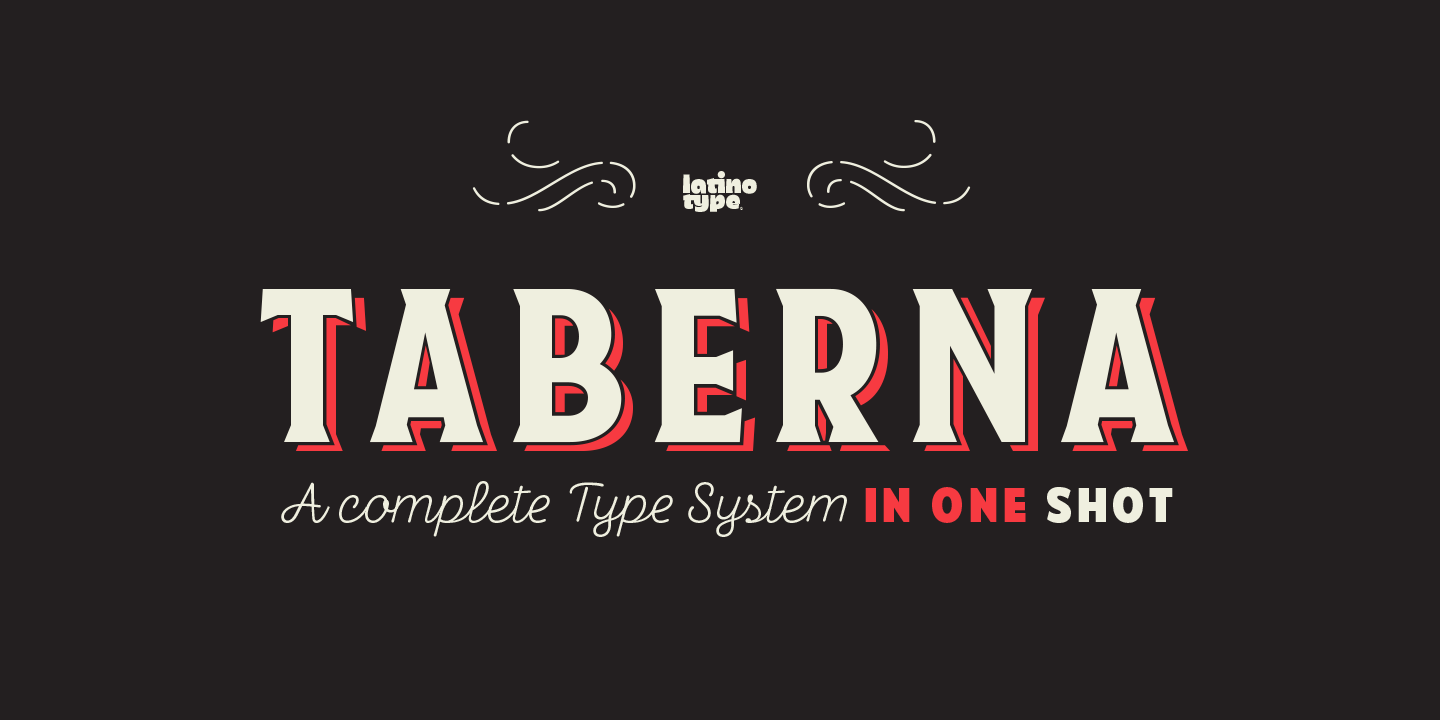
Taberna Font is perfect for rustic tavern signage, traditional pub branding, medieval restaurant menus, craft brewery labels, wine cellar displays, historic inn logos, authentic tapas bar graphics, heritage distillery packaging, old-world dining establishments, and atmospheric hospitality venue materials.
Taberna Font is exciting because it embodies the warm conviviality and time-honored tradition of historic taverns through its robust letterforms that capture the hearty spirit of traditional gathering places where stories are shared, friendships are forged, and community bonds are strengthened over good food and drink.
The Taberna Font family includes Regular, Bold, Light, Rustic, Aged, and Tavern variants, each maintaining the distinctive historic character while offering different weights and weathered styles for authentic traditional hospitality design applications.
Experience the timeless charm of traditional hospitality with Taberna Font Free Download. This warmly crafted typeface brings the convivial spirit and historic character of classic taverns into contemporary design, featuring letterforms that embody the hearty traditions and communal warmth of traditional gathering places. The font's rustic elegance and hospitable character make it perfect for restaurants, breweries, and hospitality venues seeking to communicate authenticity, tradition, and the timeless appeal of genuine community gathering spaces.
Taberna Font excels in hospitality and beverage applications where historic authenticity and convivial atmosphere are paramount. Its distinctive character draws inspiration from traditional tavern signage and historic hospitality typography, making it ideal for craft breweries, traditional restaurants, and heritage hospitality brands targeting patrons who appreciate authentic experiences, traditional craftsmanship, and the warm community spirit of classic gathering places.
The development of Taberna Font involved extensive research into historic tavern typography and traditional hospitality signage, ensuring each character reflects the genuine warmth and community spirit that defines authentic tavern culture. This attention to historic authenticity creates letterforms that feel connected to centuries of hospitality tradition rather than superficial themed decoration.
For designers working with breweries, traditional restaurants, or heritage hospitality venues, Taberna Font provides the perfect balance of historic authenticity and contemporary functionality. It pairs beautifully with natural textures, complements warm earth-tone palettes, and adds instant traditional character to projects requiring genuine hospitality warmth and community spirit.
Whether you're creating brewery identities, traditional restaurant branding, historic venue materials, or craft beverage packaging, Taberna Font delivers the authentic hospitality voice that resonates with patrons who appreciate traditional craftsmanship and genuine community experiences. Its combination of historic heritage and practical design makes it an essential tool for capturing the timeless appeal of traditional hospitality and the warm spirit of authentic gathering places.